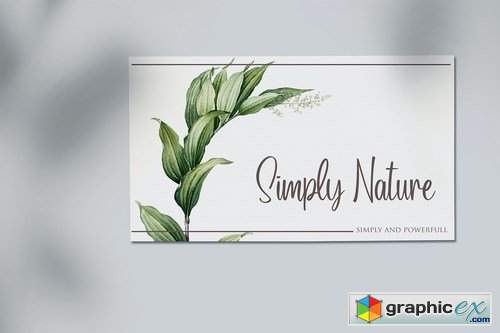
Lovely Script
Need a lovely font for your project design? Lovely Script is the right answer! Lovely Script is suitable for many projects design especially for a branding project, wedding, and lettering.